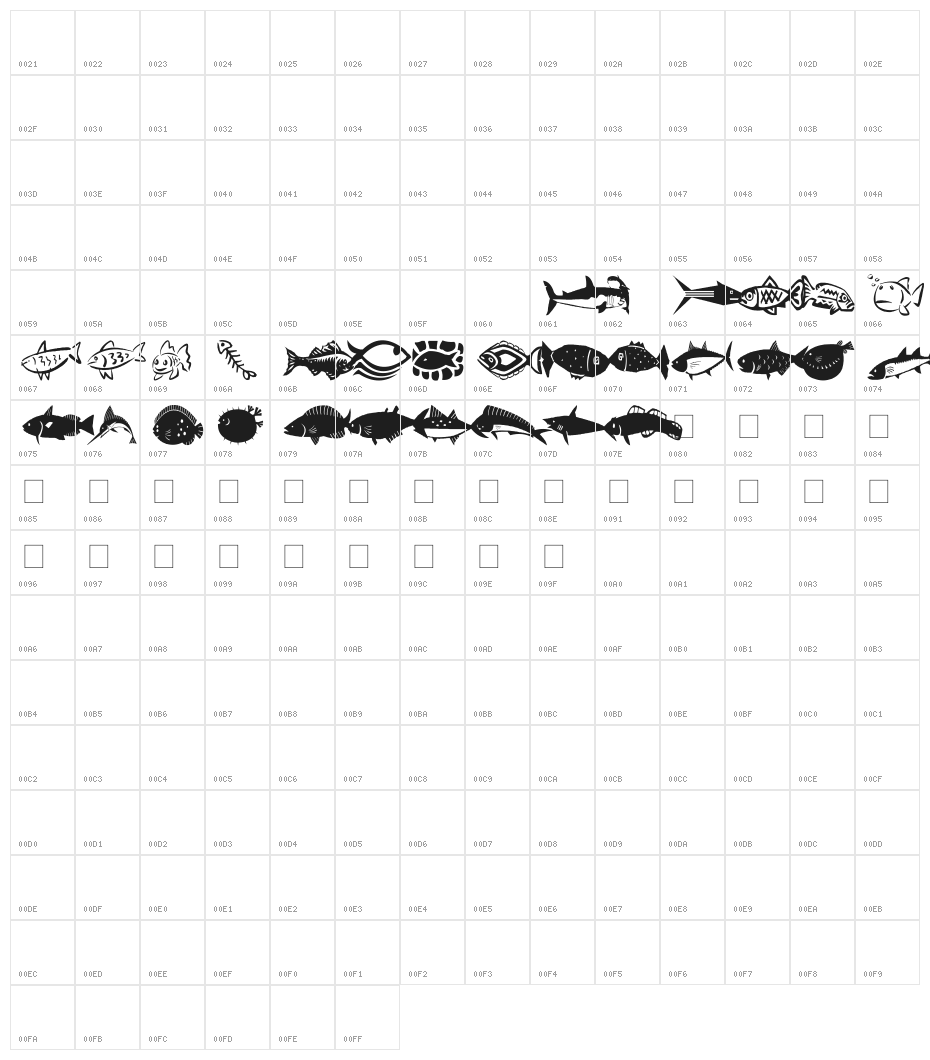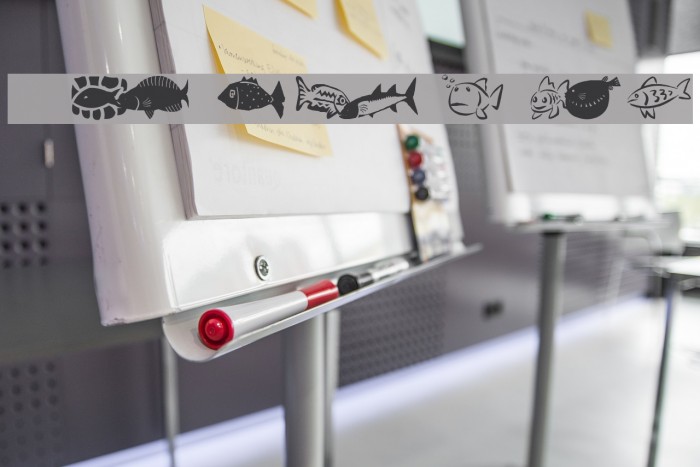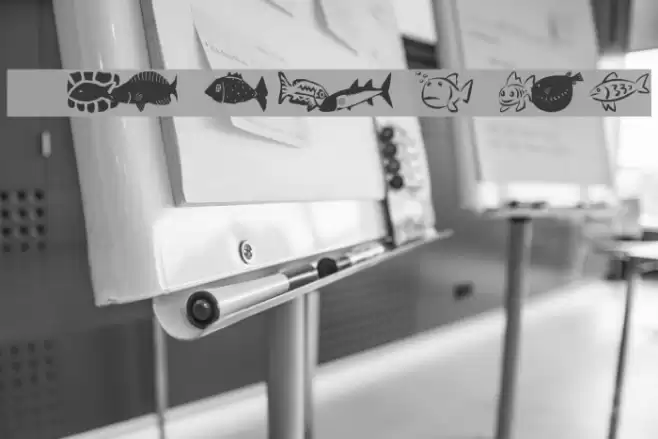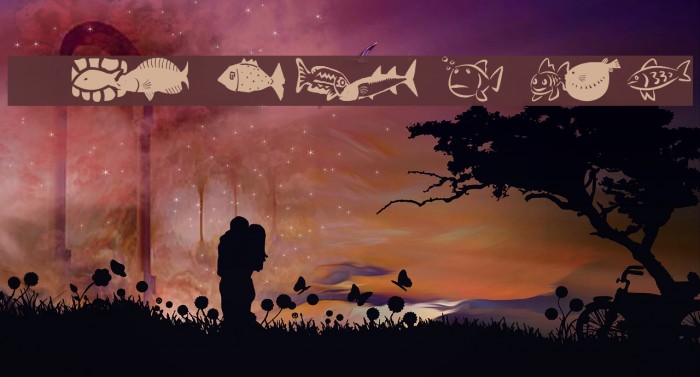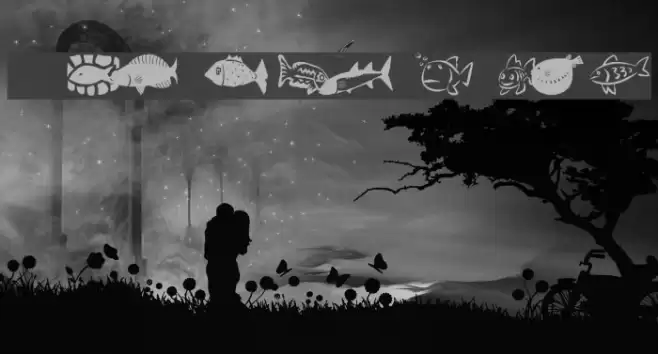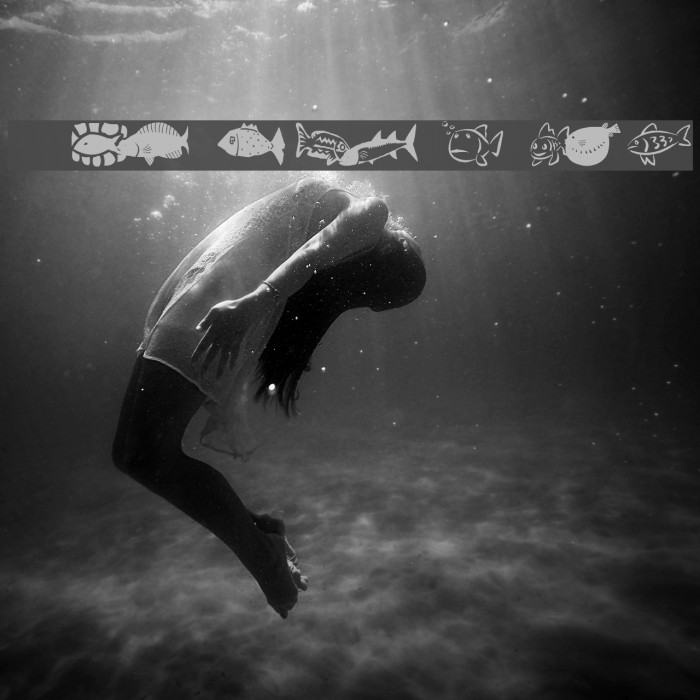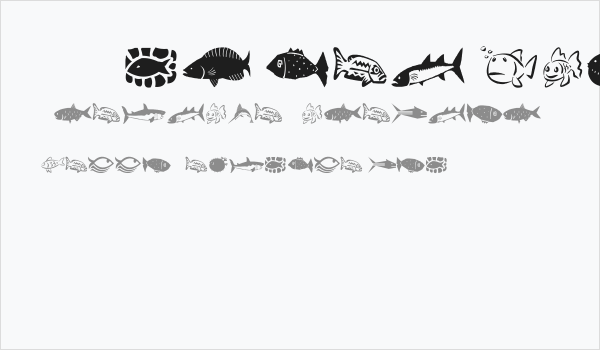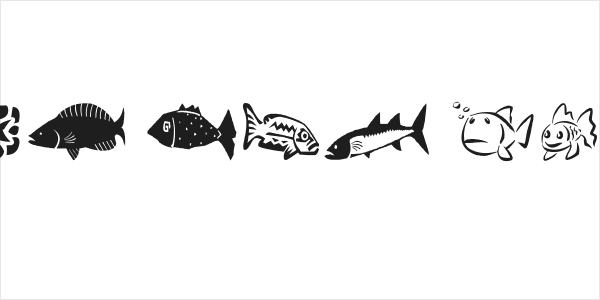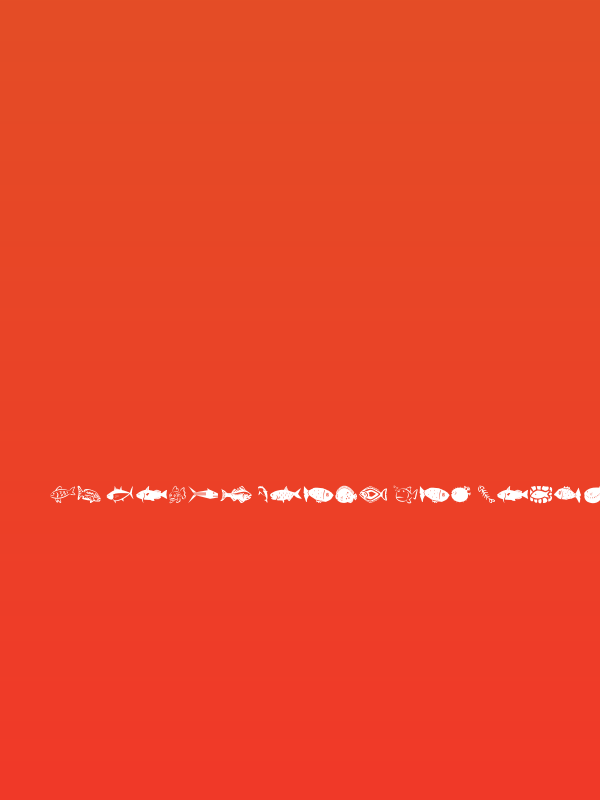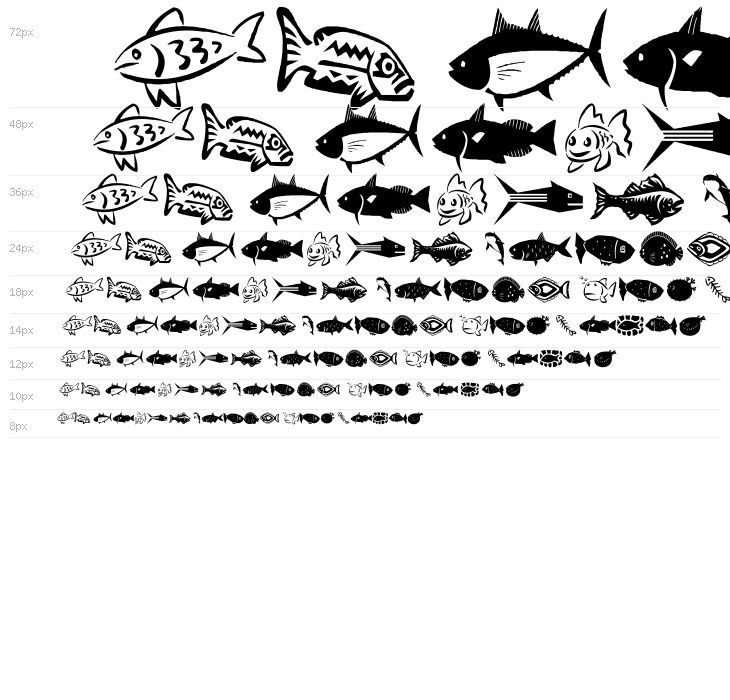
AEZ my pet fish Font
AEZ my pet fish Description
This font features a whimsical collection of fish illustrations, each character represented by a unique fish design. The designs range from simple outlines to more detailed and textured depictions, capturing a variety of fish species and styles. The playful nature of the illustrations makes it ideal for creative and fun projects. Each fish character is distinct, offering a wide range of visual interest and personality. The font is not suitable for traditional text but serves as a decorative element, perfect for adding a touch of aquatic charm to any design.
| Use Case | Logos, Decorative elements, Thematic designs |
| Proposed Projects | Ideal for children's books, aquatic-themed designs, educational materials, and playful branding projects. |